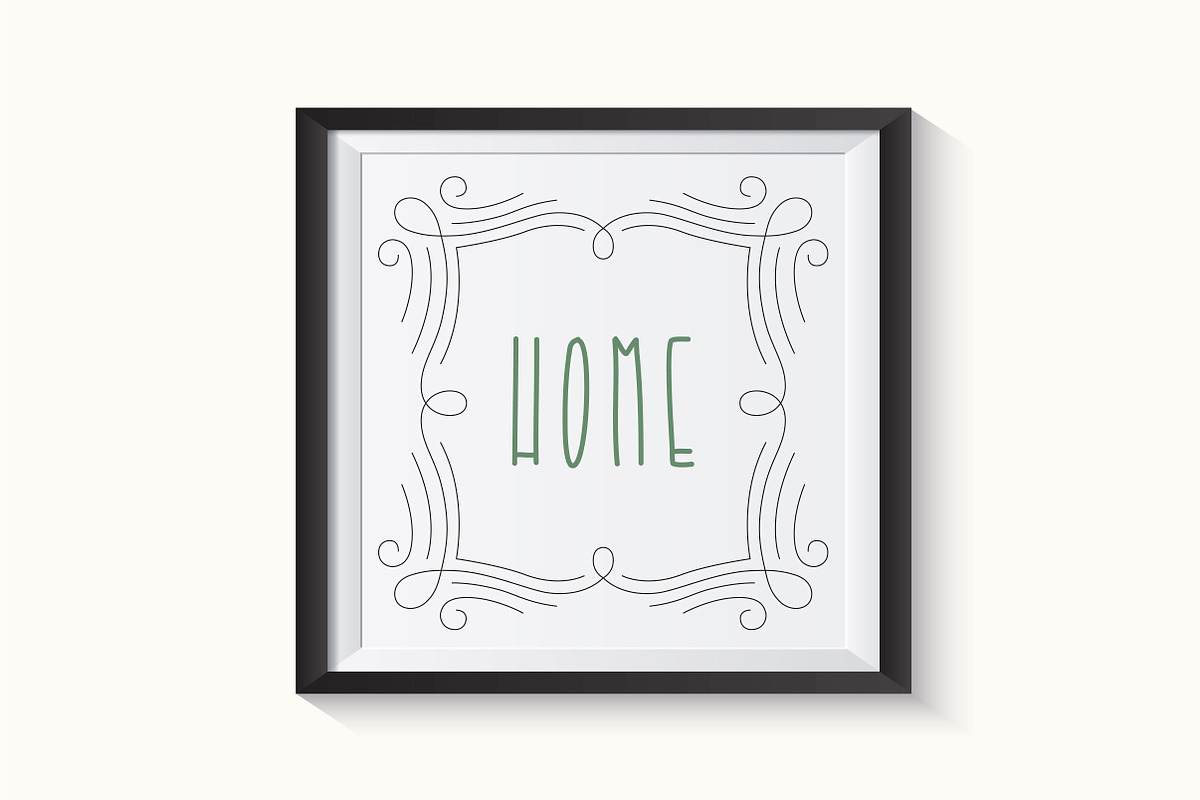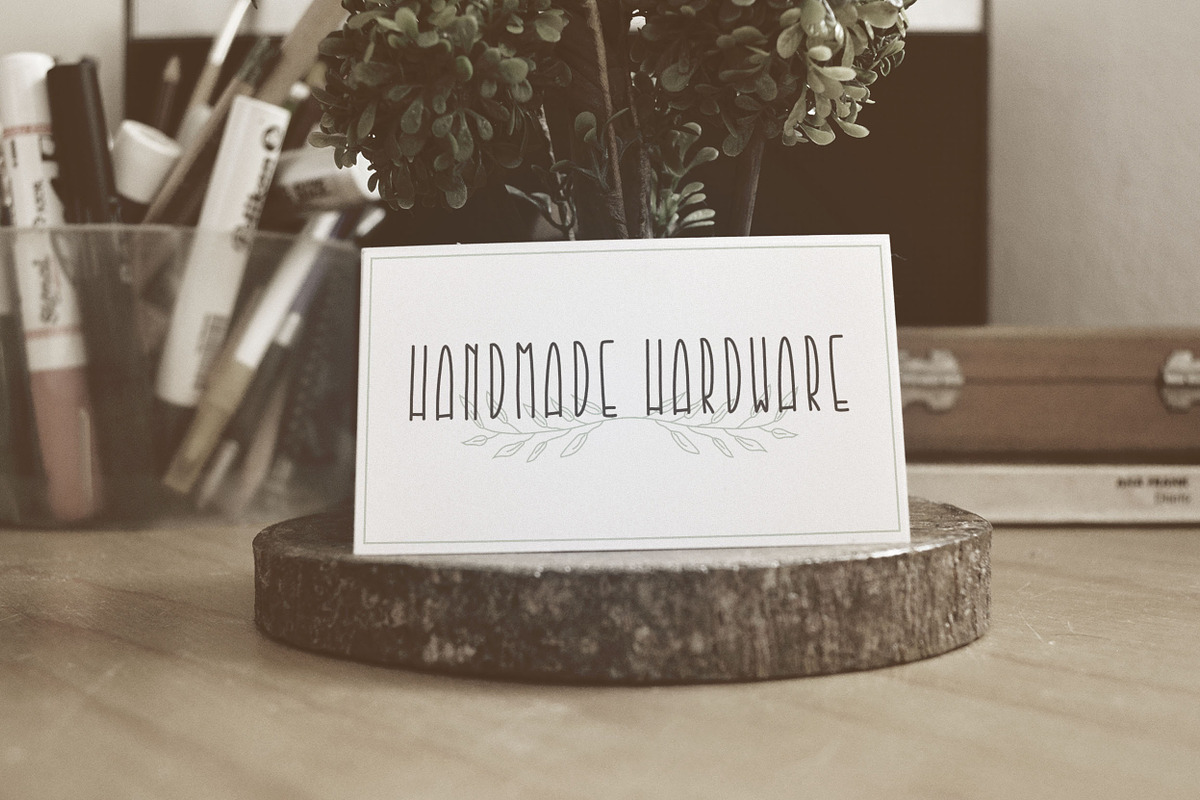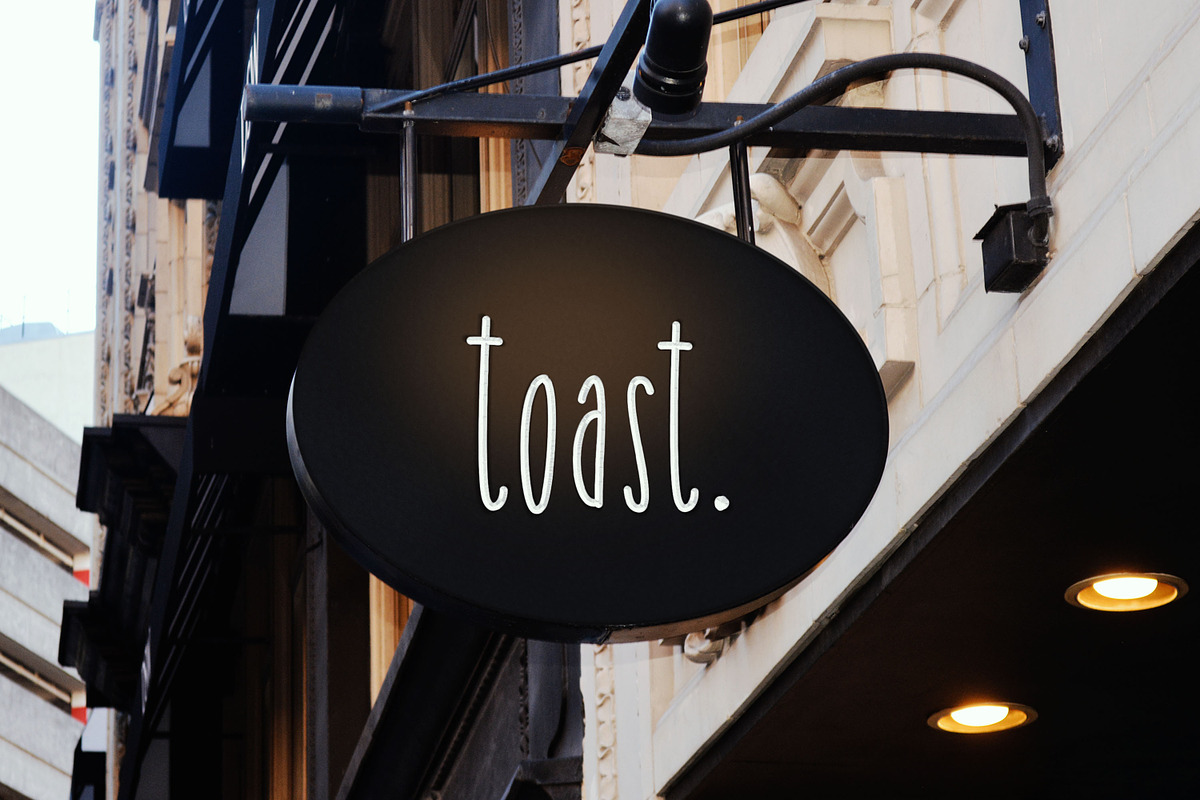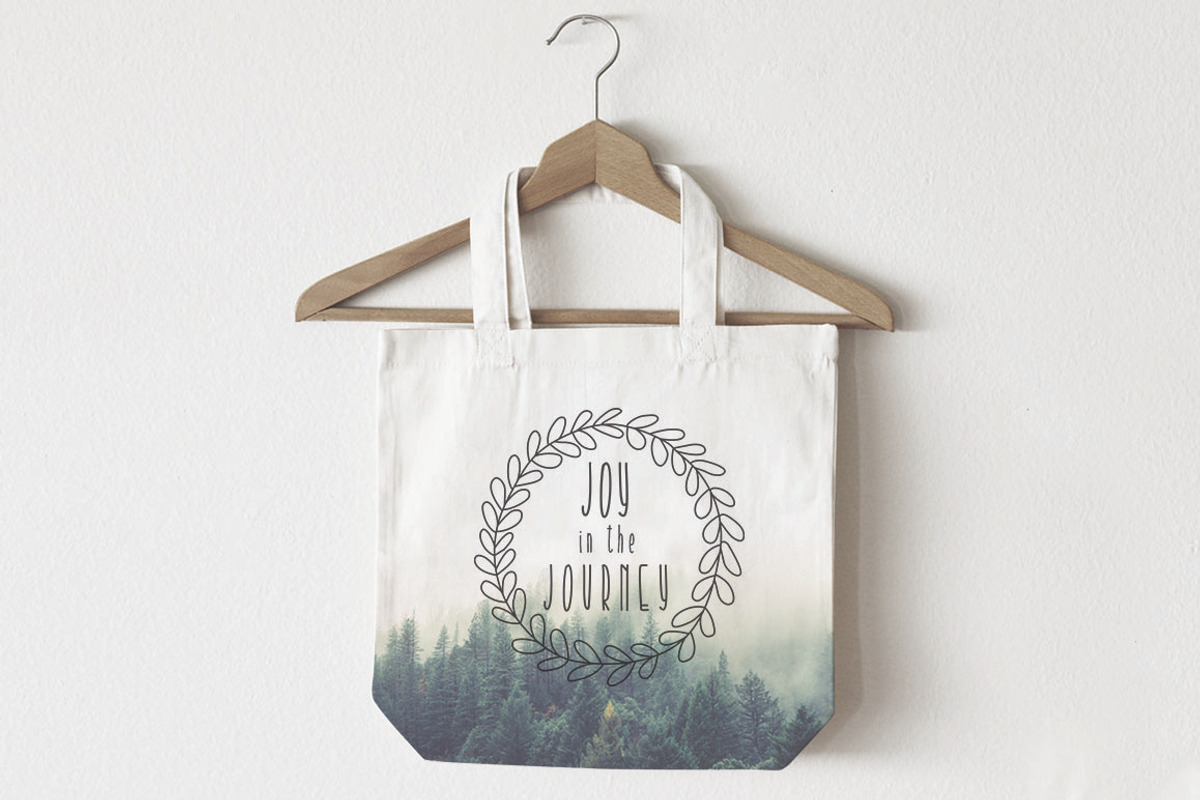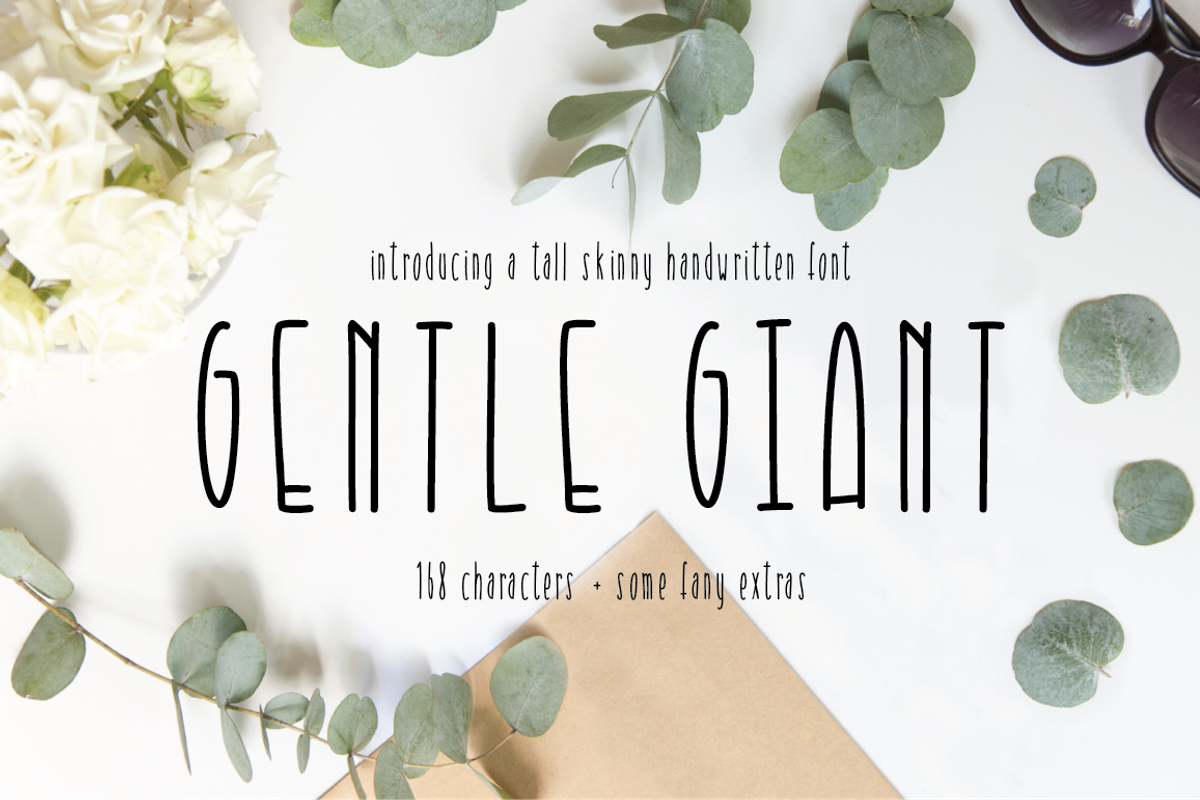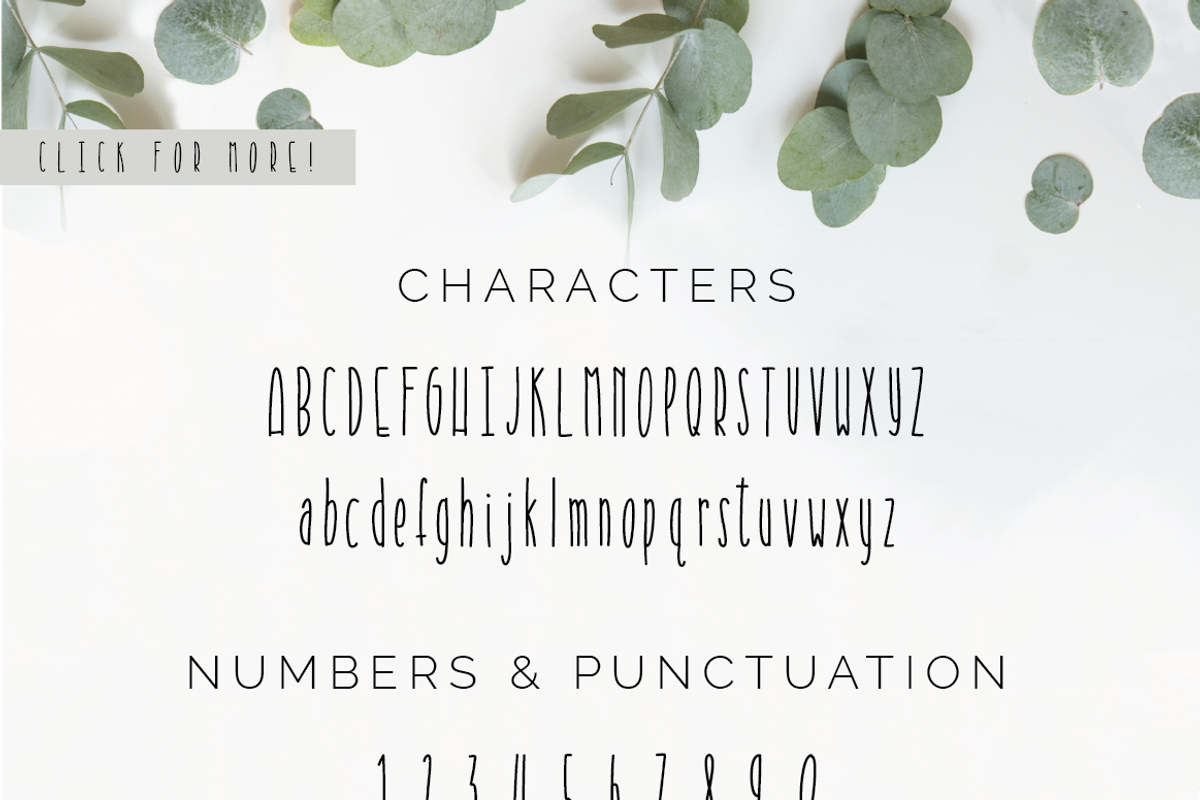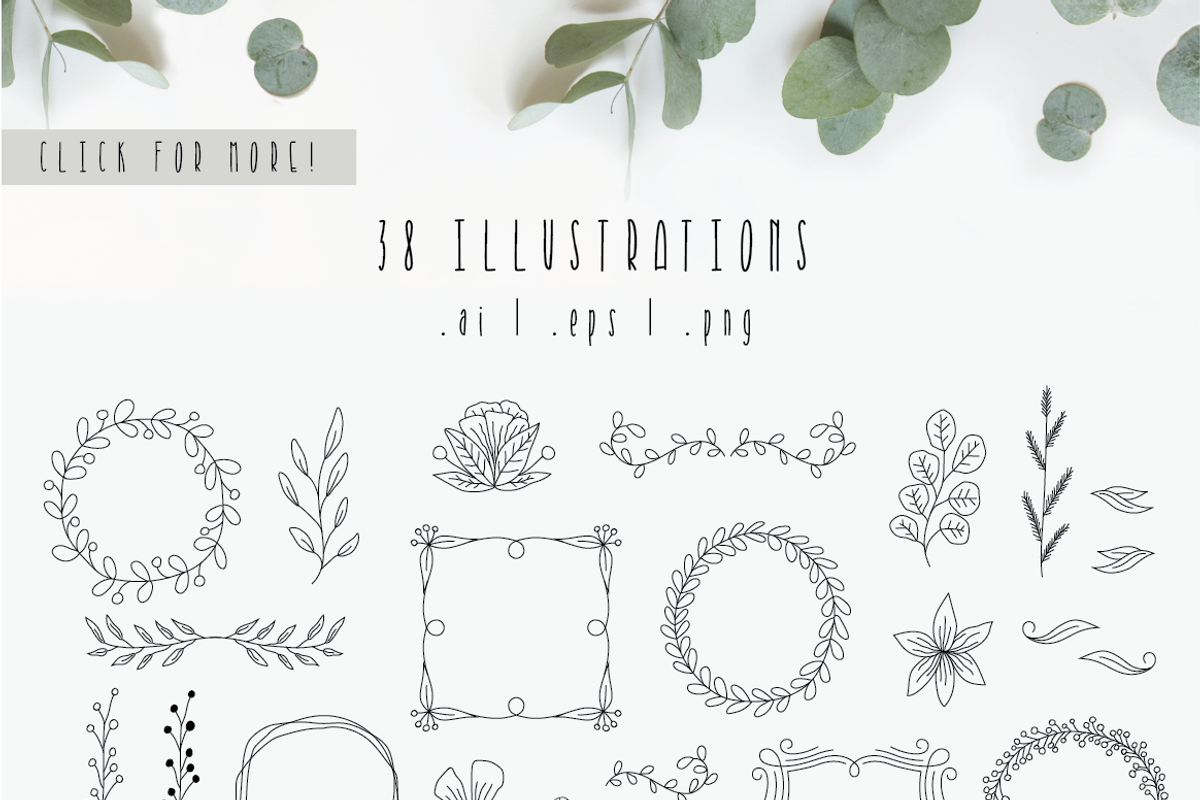
Gentle Giant Condensed Font
This condensed font will add a bit of whimsy and fun to a wide variety of projects! The name for this font comes from my husbands Instagram handle. He is 6'7" and might seem rather imposing at first, but really he's just a big softy!
Gentle Giant comes as a single font file packed full of great features:
Full set of lower and upper case letters
Punctuation and numerals
Along with the font, enjoy a selection of 38 hand drawn line illustrations that perfectly match the style of Gentle Giant! These illustrations come in an illustrator file, .eps file and as individual .png files with transparent backgrounds. Use these illustrations to create your own prints, logos, cards, and more!